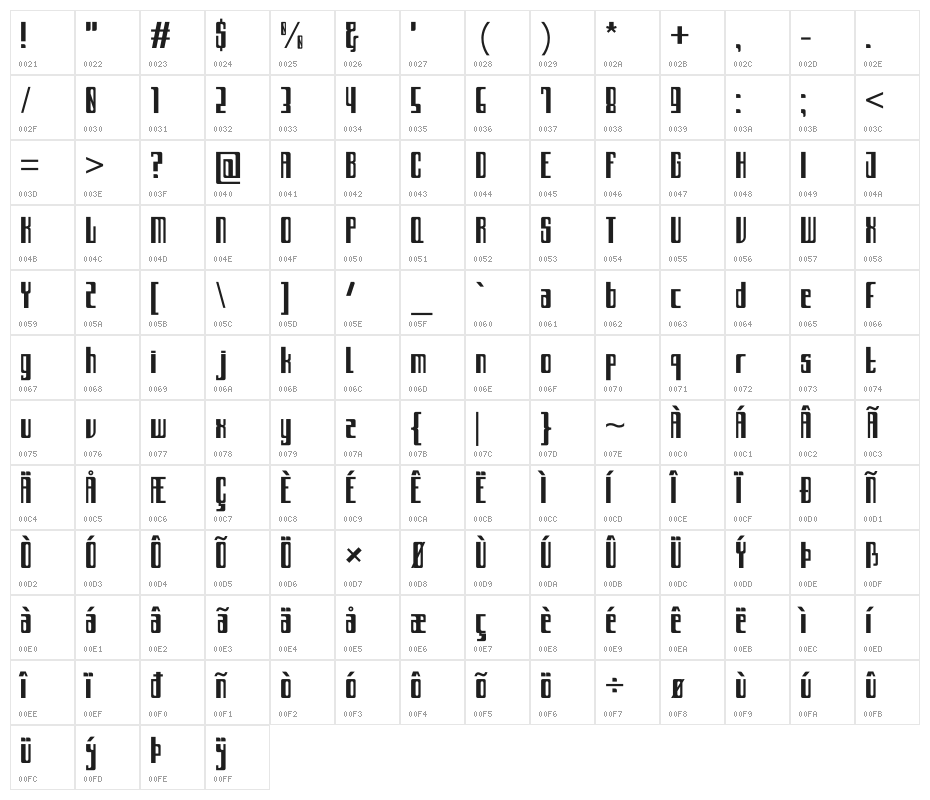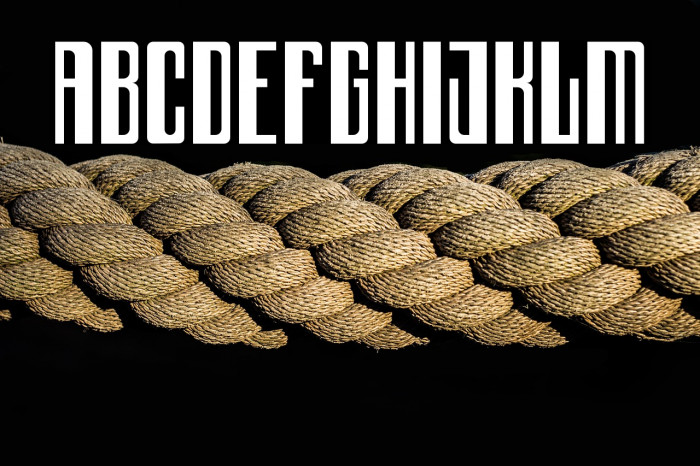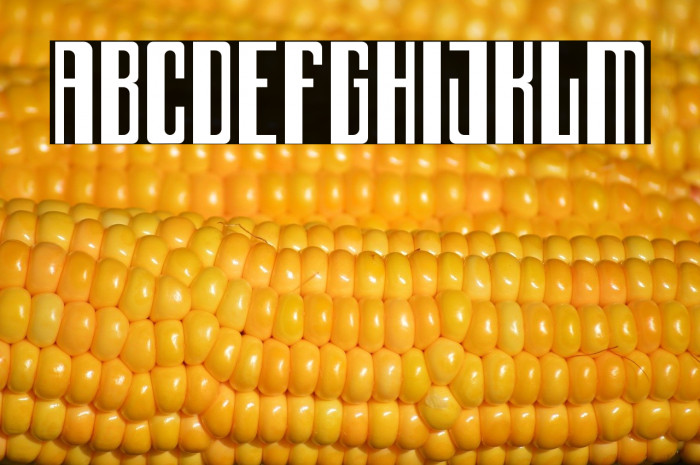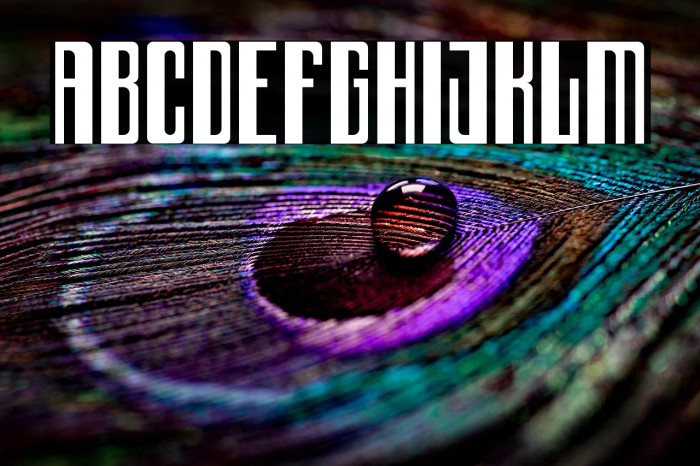
Archimate Font
Archimate Description
This font features a bold and modern design with a strong geometric influence. The characters are tall and narrow, giving a condensed appearance that is both striking and efficient in space usage. The uppercase letters have a uniform height, while the lowercase letters maintain a consistent style with slight variations in height and width. The numerals are distinct and align well with the overall design, ensuring readability. Special characters are designed to match the bold and angular style, making them easily recognizable. The font's high contrast in stroke thickness adds to its visual impact, making it suitable for attention-grabbing headlines and titles.
| Proposed Projects | Ideal for branding, poster design, and editorial headlines where a modern and impactful look is desired. |